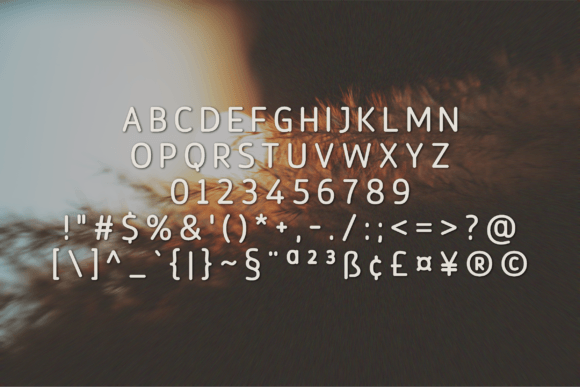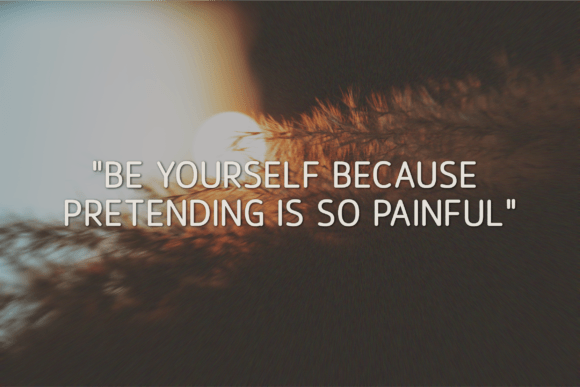
The Almond Western Font: A Designer’s New Best Friend
I still remember the design project that led me to discover the Almond Western font. I was working on a branding project for a client’s new coffee shop, and I was struggling to find the perfect font. The client wanted something modern, yet rustic; clean, yet with a touch of personality. I tried font after font, but nothing seemed to fit the bill. That was until I stumbled upon Almond Western. ✨
This all-caps sans serif font has been a game-changer for me, and I’m excited to share my experience with you. With its smooth and clean lines, just a touch of contrast, Almond Western works beautifully for logos, branding, and web headings.
- ✨ Versatility: Almond Western looks great in just about any context, from digital to print.
- ✅ Clean and Modern: The font’s smooth lines and subtle contrast make it perfect for modern designs.
- 💡 Easy to Read: The font’s clear and concise style makes it easy to read, even at smaller sizes.
While Almond Western is an excellent font, there are a few things to keep in mind: 🤔
- ⚠️ Limited Emphasis: As an all-caps font, Almond Western can lack emphasis in certain contexts. Consider using bold or italic styles to add emphasis.
- ⚠️ Glyph Limitations: While Almond Western has a range of glyphs, it may not have every special character you need. Be sure to check the font’s capabilities before using it for a project.
Almond Western was designed with the goal of creating a clean and modern sans serif font that could be used in a variety of contexts. The font’s designer was inspired by the simplicity and elegance of classic Western typography, with a focus on creating a font that was both versatile and beautiful.
Q: What is Almond Western?
A: Almond Western is an all-caps sans serif font designed for use in a variety of contexts, including logos, branding, and web headings.
Q: What are the benefits of using Almond Western?
A: Almond Western offers a clean and modern style, versatility, and ease of use. It’s perfect for designers, crafters, and creative hobbyists looking for a reliable font.